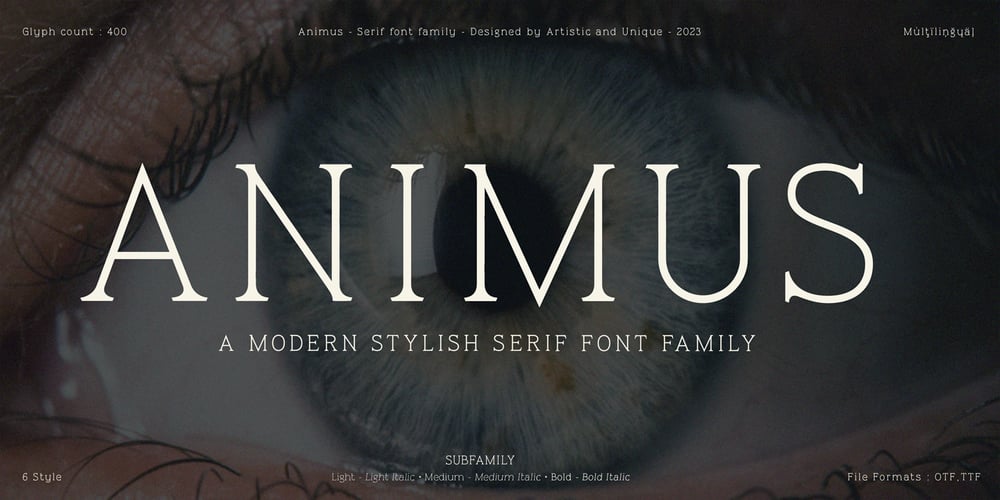
Animus
Animus Font Family was designed by Osman Taner Kucukgenc and published by Artisticandunique. Animus contains 6 styles and family package options. Animus – Serif font family – Multilingual – 6 StylesAnimus is a uniquely elegant serif font family.This font provides flexibility in all your projects with its aesthetic structure, multilingual options, 6 styles and 3 weight options. You will have the opportunity to enrich the content of your projects with its elegant structure.Depending on the purpose of use in the typographic composition you will create with 6 styles; you can enrich your titles in books or magazines and your logos for branding. You can benefit form the elegant structure of standard characters in your plain text.This font comes with uppercase, lowercase, punctuation, symbols and numbers, ligatures and multilingual supports.Ideal for books and magazines, editorials, headlines, websites, packaging, logos, branding, advertising, movie titles and more. This font family can meet your needs in all creative projects, modern and classic.With this font you can create your unique designs.Have a good time.